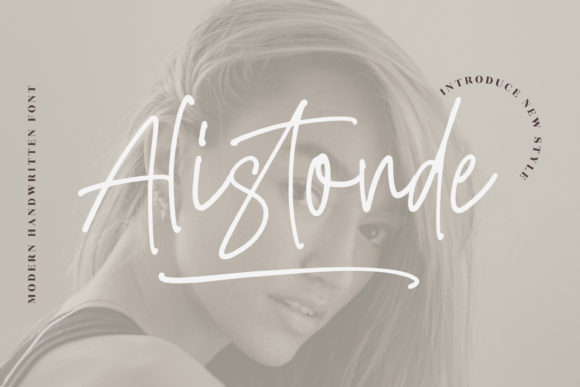
The Elusive Luxury Font: My Journey with Alistonde
I still remember the design project that led me to discover Alistonde. I was working on a luxury branding project for a high-end fashion client, and I was struggling to find the perfect font that exuded elegance and sophistication. The client wanted a font that would make their brand stand out, but still convey a sense of refinement and poise. After hours of scouring font libraries and marketplaces, I stumbled upon Alistonde – a fashionable and delicate calligraphy typeface that seemed to dance along the baseline.
It was love at first sight! The fluid lines, the intricate details, and the luxurious feel of Alistonde immediately caught my attention. I knew I had found the perfect font for my project, and I couldn’t wait to dive in and explore its features.
An Honest Review of Alistonde
- ✨ Elegant and sophisticated design that’s perfect for luxury branding projects
- 💫 Beautifully crafted characters that add a touch of elegance to any design
- 🎨 Highly versatile and can be used for a variety of design projects, from logos to invitations
While Alistonde is an amazing font, there are a few quirks to be aware of:
- 🤔 Some users may find the font a bit challenging to read at smaller sizes, so it’s best to use it at larger sizes or for display purposes.
The Backstory of Alistonde
Alistonde was designed with the intention of creating a luxurious and elegant calligraphy font that would add a touch of sophistication to any design project. The designer drew inspiration from traditional calligraphy techniques and combined them with modern typography principles to create a unique and versatile font.
Q: Is Alistonde suitable for body text?
A: While Alistonde is a beautiful font, it’s best suited for display purposes or large text sizes. For body text, you may want to consider a more legible font.